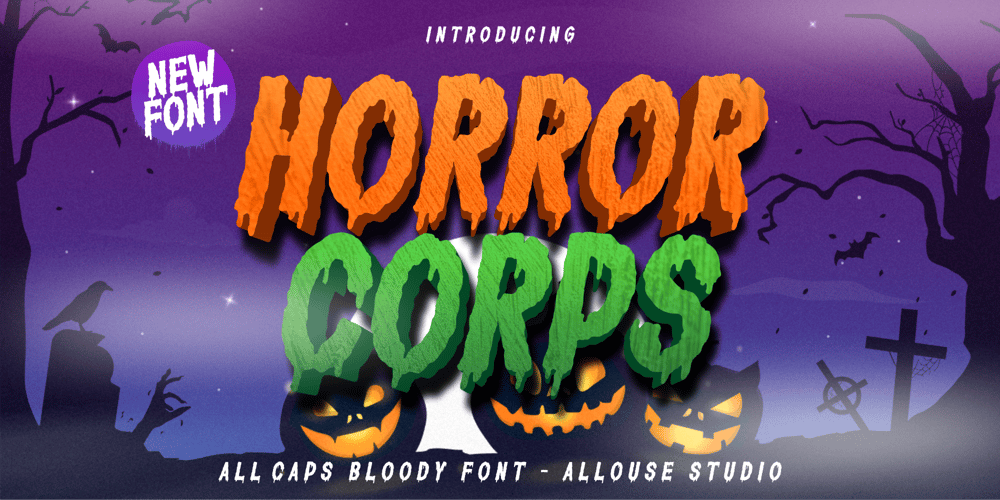
Horror Corps Font Family was designed by Fachrizal Yusuf and published by Allouse Studio. Horror Corps contains 1 styles and family package options. Proudly Presenting, Horror Corps a Handdrawn All Caps Bloody Font.Horror Corps is perfect for any titles, logo, product packaging, branding project, megazine, social media, or just used to express words above the background.Horror Corps also come with Multi-Lingual Support.Enjoy the font, feel free to comment or feedback, send me PM or email. Thank You!